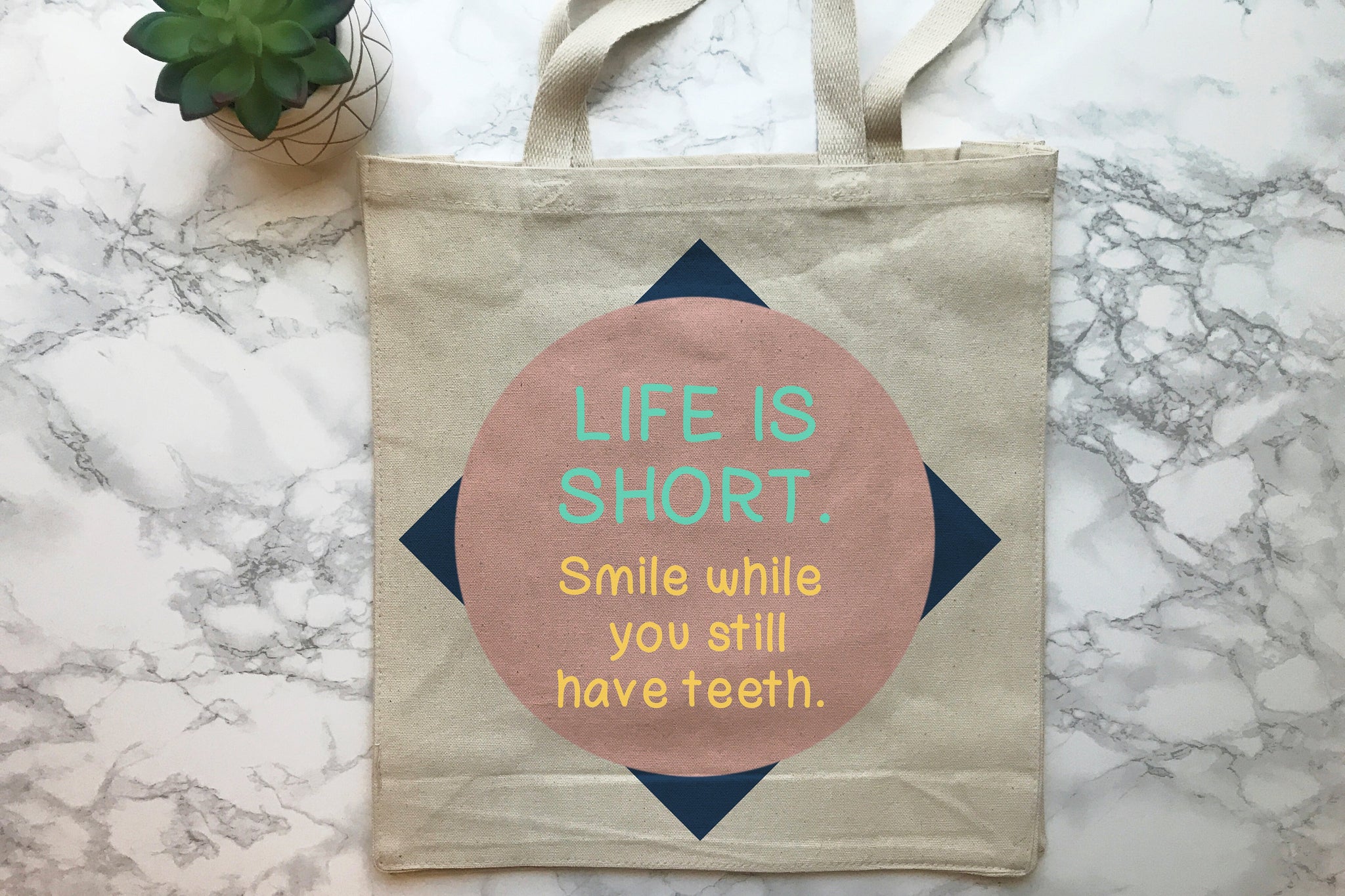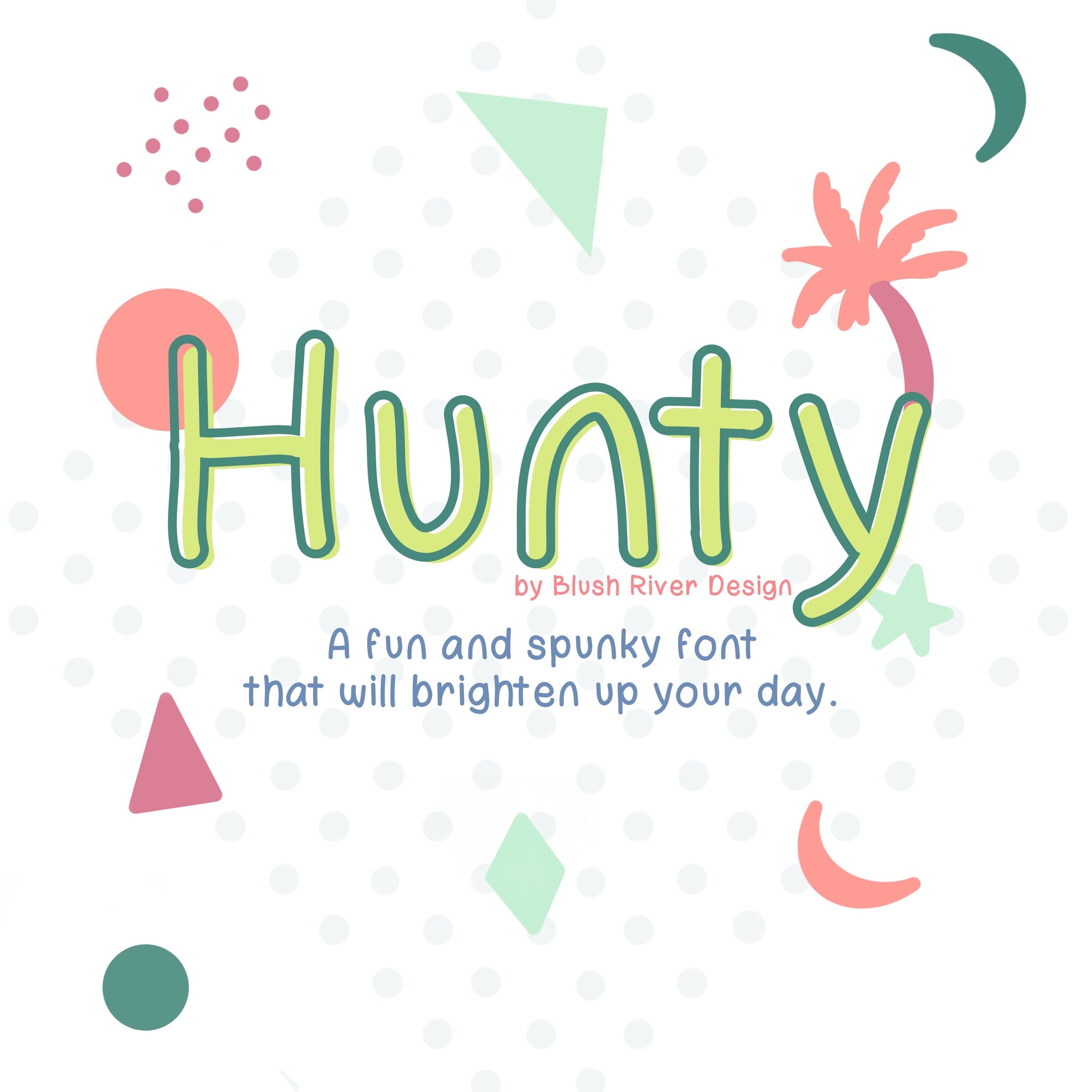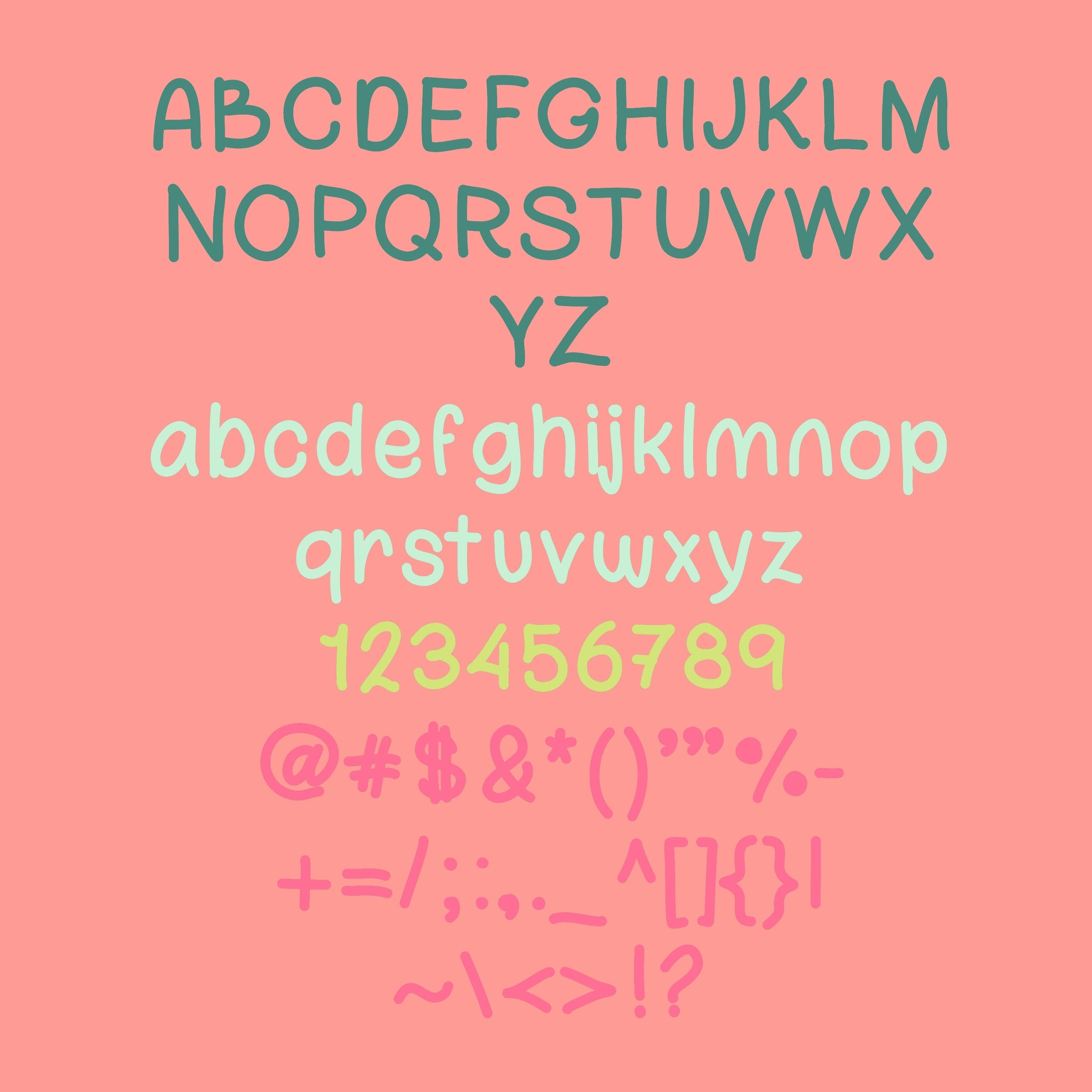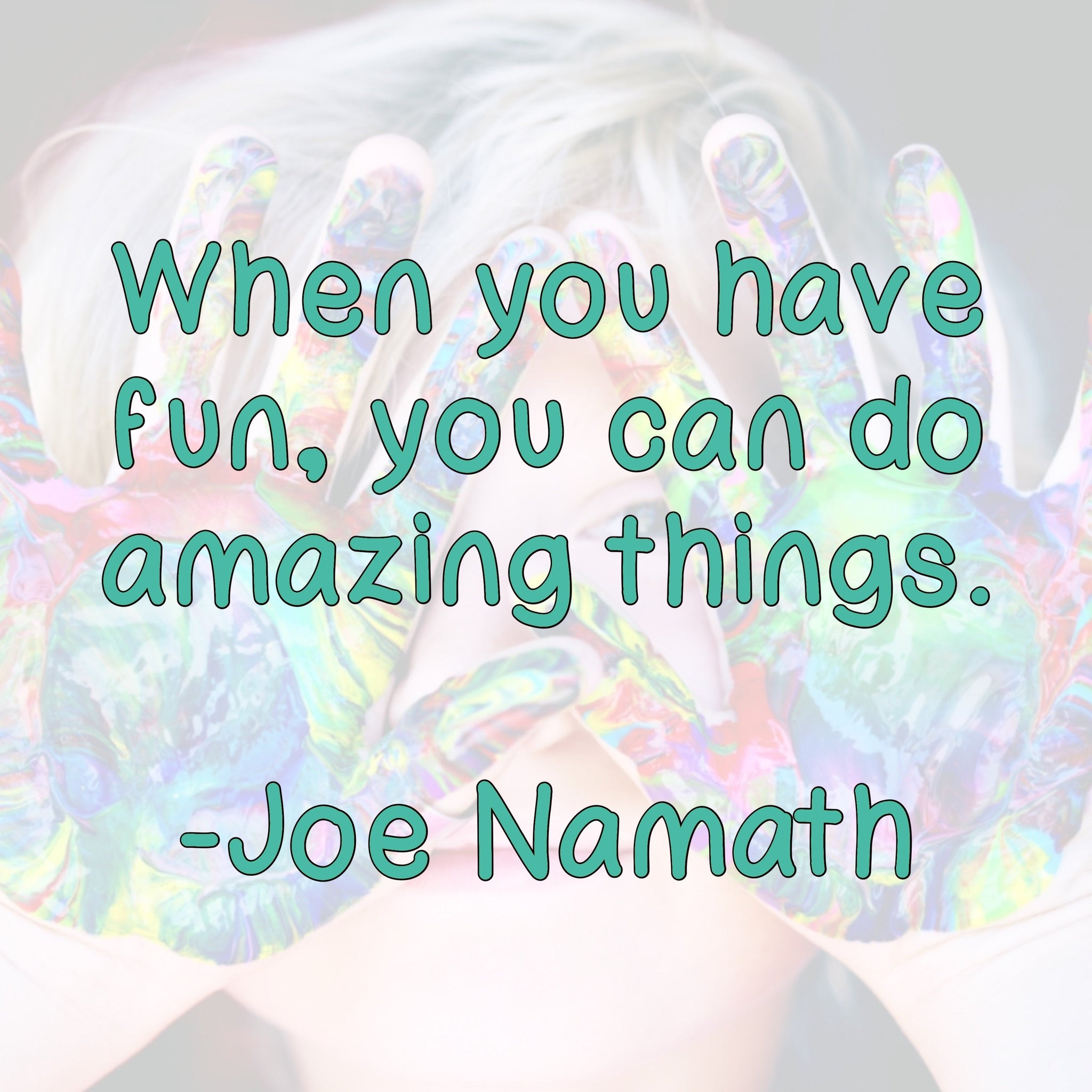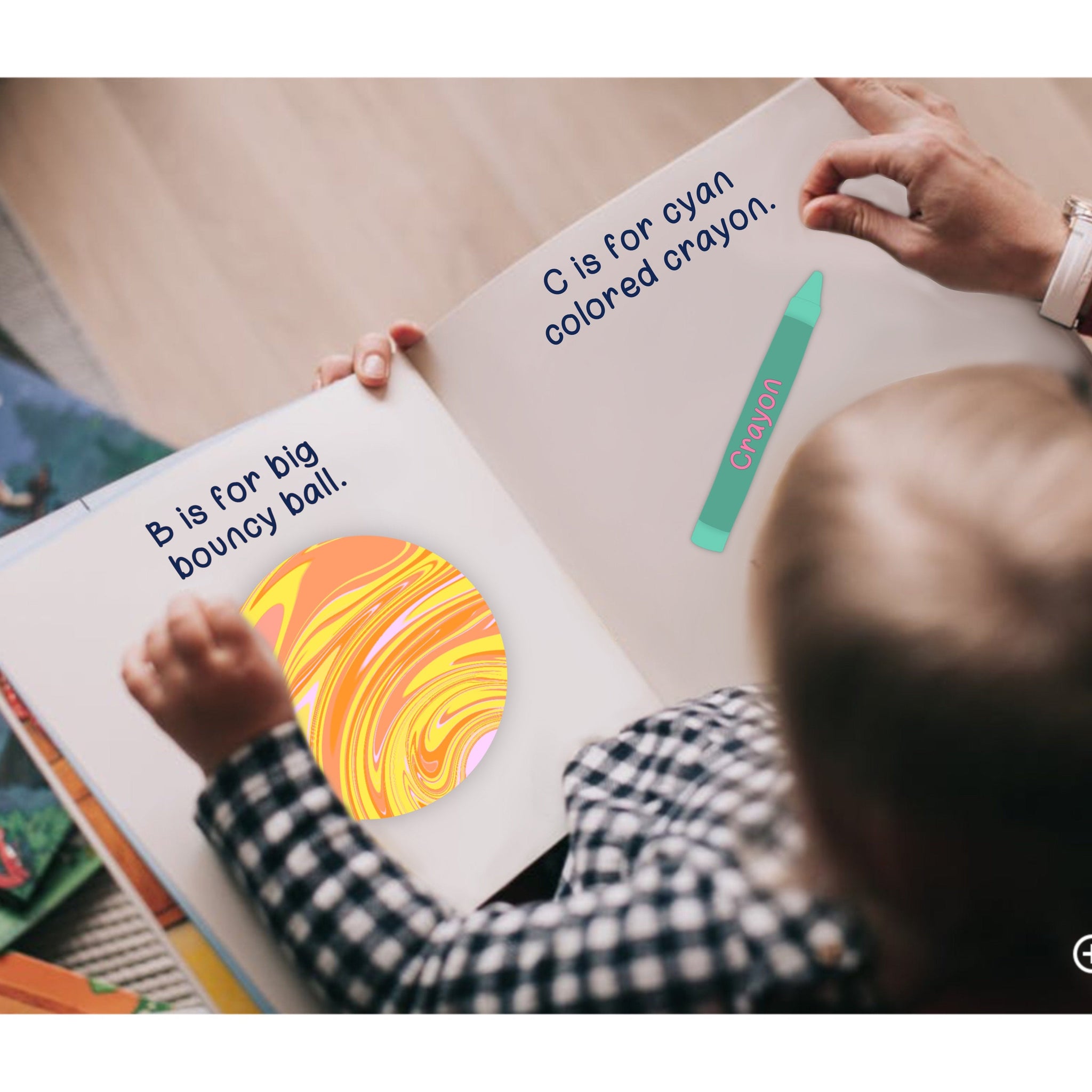
Hunty Font- For Personal Use
This new font is sure to add some fun and spunk to whatever you use it on. It is a loose handwritten font that will help your work to feel bubbly and happy!
This font was named after my son who is bubbly, bright, spunky and brightens up any day!